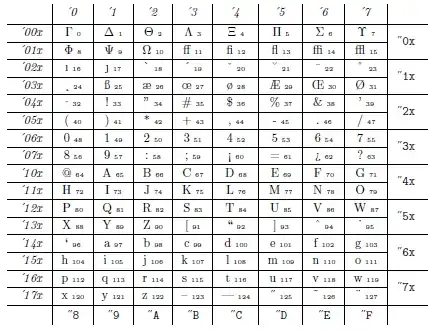
I've read a number of posts that ask about why the symbols > and < show up incorrectly as ¡ and ¿. The solution is to use the T1 font encoding. Okay.
I'd like to learn about why these symbols show up the way they do with the original OT1 font encoding. It seems the technical reason is that the ASCII value of < was used to represent ¡ and the value for > was used to represent ¿. But, what is the historical reason for this?
Also, I know, for example, that the original OT1 font encoding (section A.1) does not include these two symbols. Okay. But then why do \textless and \textgreater generate the right glyphs and where do these glyphs come from? There are other characters, such as the blackslash () and the pipe (|). I suspect similar reasons for these?
• the original (OT1) fonts only have 128 slots available; since < and > are plainly needed in maths, knuth put them in the corresponding places in the maths font encodings, leaving space in the OT1 encodings for other things he reckoned he needed. T1 fonts have 256 slots available, and are therefore able to represent "<" and ">" in the font slots one might expect to find them, without these elaborate meldings of different fonts. all this mess is more-or-less covered with T1 fonts, but we're left with a default font that reflects the situation when tex was first released in the 1980s. – wasteofspace Jan 09 '15 at 22:16
The historical reason is that TeX was initially developed in the late seventies of the 20th century, when seven bit was the norm (the eighth bit in a byte was used for parity check).
The fonts developed by Knuth use just seven bit, so they can accommodate only 128 glyphs. In order to make available as many useful character as possible, Knuth had to discard some of those that rarely appear in normal text.
The first 32 slots were free for various symbols, but uppercase Greek, accents and f-ligatures already fill up 23 of them. Then the dotless i and j and the letters ß Æ æ Œ œ Ø ø make for 32.
Important text symbols such as the open double quotes, en-dash an em-dash, as well as ¡ and ¿ aren't in ASCII, but are used in text.
Conversely, braces {}, less than and greater than <> are much less common in text.
Just a trade-off. Note that there wasn't Unicode at that time and so a ligaturing mechanism was introduced for typesetting !¿–—.
When TeX started to spread also in Europe, the problems due to missing hyphenation point when words with accented letters were used pushed the development of a new font encoding and T1 was born, where the range of printable ASCII character (32–126) contains the ASCII characters proper.
In my opinion the presence of the uppercase Greek letters in the original font encoding is an error. But one of the aims of Knuth was not to leave any slot unfilled, in order to avoid proliferation of different ways to fill them.
Computers don't deal in symbols, they deal in numbers and < means character 60 in the current font and in the OT1 encoding that is an inverted exclamation mark. In a T1 encoded font and any other font encoding based on ASCII or Unicode that slot is a less than sign.
The default TeX fonts are designed for a different era and are 7-bit fonts (or at least 8 bit with all the top slots empty, so, on the assumption that < should be in math anyway so not needed in the text font, some slots were used to squeeze in additional symbols.
\textless and friends are defined to pull characters from the math fonts if OT1 is the current encoding.
These 2 lines are included in latex.ltx:
\DeclareTextSymbolDefault{\textless}{OML}
\DeclareTextSymbolDefault{\textgreater}{OML}
What this does is define these two commands so that they use the currently active font in the OML encoding, which is primarily used for mathematics. Hence, they do not rely on the OT1 encoded fonts at all.
When you use the T1 encoding, these defaults are overridden:
\DeclareTextSymbol{\textgreater}{T1}{`\>}
\DeclareTextSymbol{\textless}{T1}{`\<}
which ensures that the commands use the currently active font in the T1 encoding. Hence, if you use different fonts for mathematics and text for some reason, these commands will behave as expected with T1 but not with OT1 because, in the latter case, the mathematical font will be used even in text mode (because the symbols aren't otherwise available at all).
Look at the font tables for the following minimal example:
\documentclass{article}
%\usepackage[T1]{fontenc}
\usepackage{fonttable}
\begin{document}
Just some <regular text> and \textless more text\textgreater.
\show\textless
\show\textgreater
\clearpage
\fonttable{cmr10}
\clearpage
\xfonttable{T1}{cmr}{m}{n}
\clearpage
\xfonttable{OML}{cmr}{m}{n}
\end{document}
Regular:
T1:
OML:
Specifically look at positions 60 and 62.